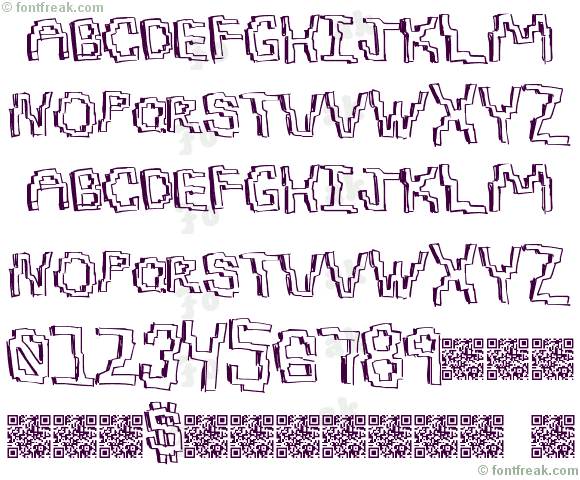
PixelDraw
PixelDraw by XEROGRAPHER FONTS is a captivating display font that stands out with its unique pixelated style. This font, released in 2013, exudes a retro charm reminiscent of classic video games, making it an excellent choice for projects that require a touch of nostalgia. The visual characteristics of PixelDraw include a bold stroke weight with minimal contrast, resulting in a striking, blocky appearance that is both playful and easy to read. The slightly uneven letterforms and spacing create an organic feel, enhancing its quirky personality.
This font is particularly well-suited for a variety of creative applications. Graphic designers can utilize PixelDraw for eye-catching movie posters that aim to evoke a sense of fun and adventure. It's also ideal for video game graphics, where its pixelated design can enhance the thematic elements of retro-style games. Small business owners might find it perfect for unique branding, especially for cafes or gaming shops looking to establish a strong visual identity. Additionally, content creators can use this font in digital artwork, social media posts, or merchandise designs, allowing their projects to stand out in a crowded marketplace.
The target audience for PixelDraw includes graphic designers, small business owners, and content creators who appreciate the blend of creativity and nostalgia. This font provides an artistic avenue for those looking to engage their audience with a memorable visual style.
What sets the PixelDraw font apart is its ability to convey personality and charm while remaining versatile enough for various uses. Its freeware license allows for easy accessibility, making it an enticing option for anyone in need of a font that combines whimsy with functionality. Don’t miss out on the opportunity to enhance your projects with a PixelDraw font free download today.